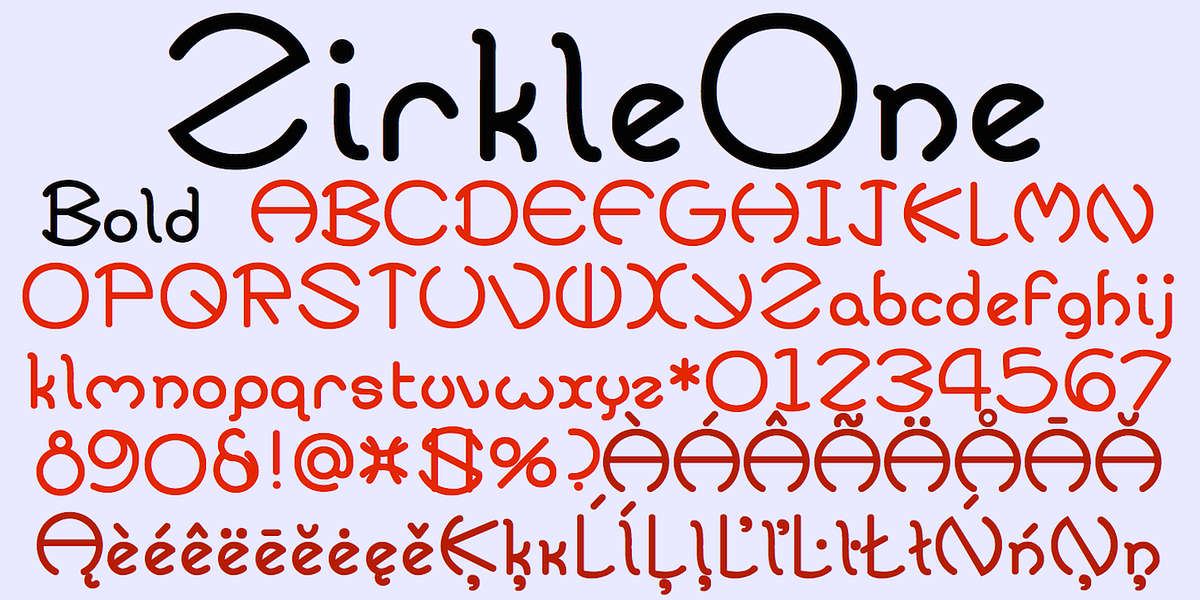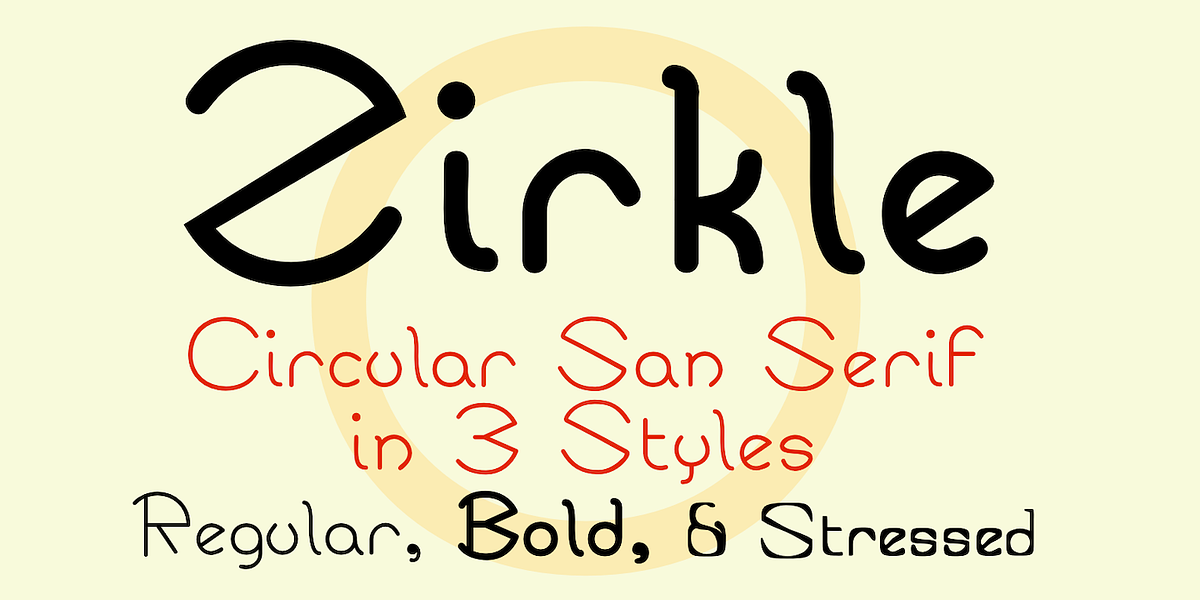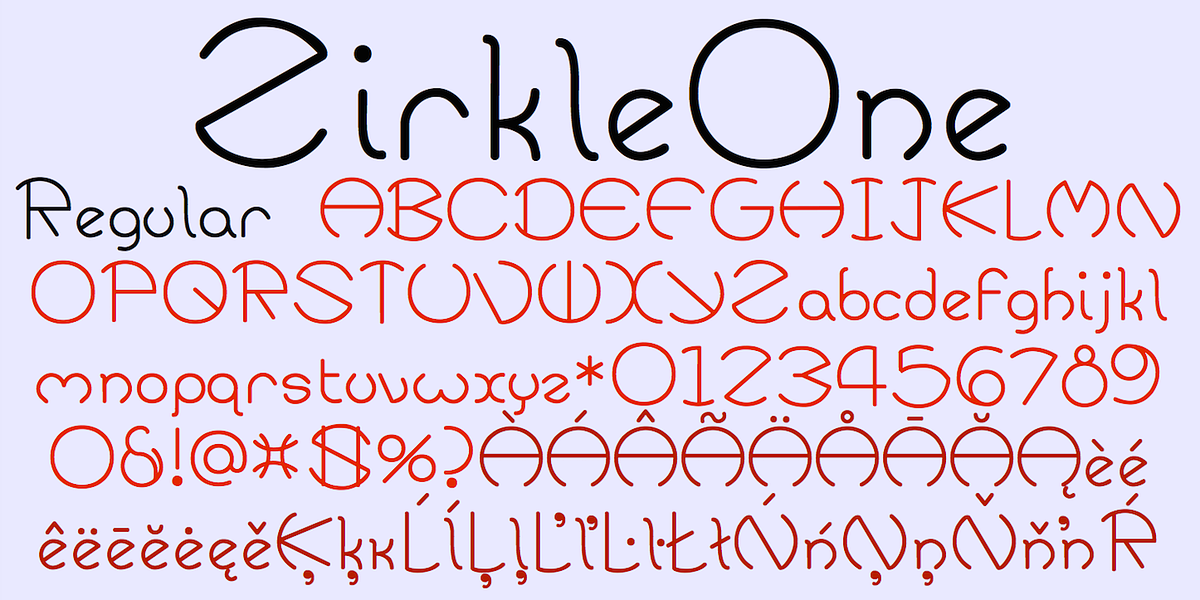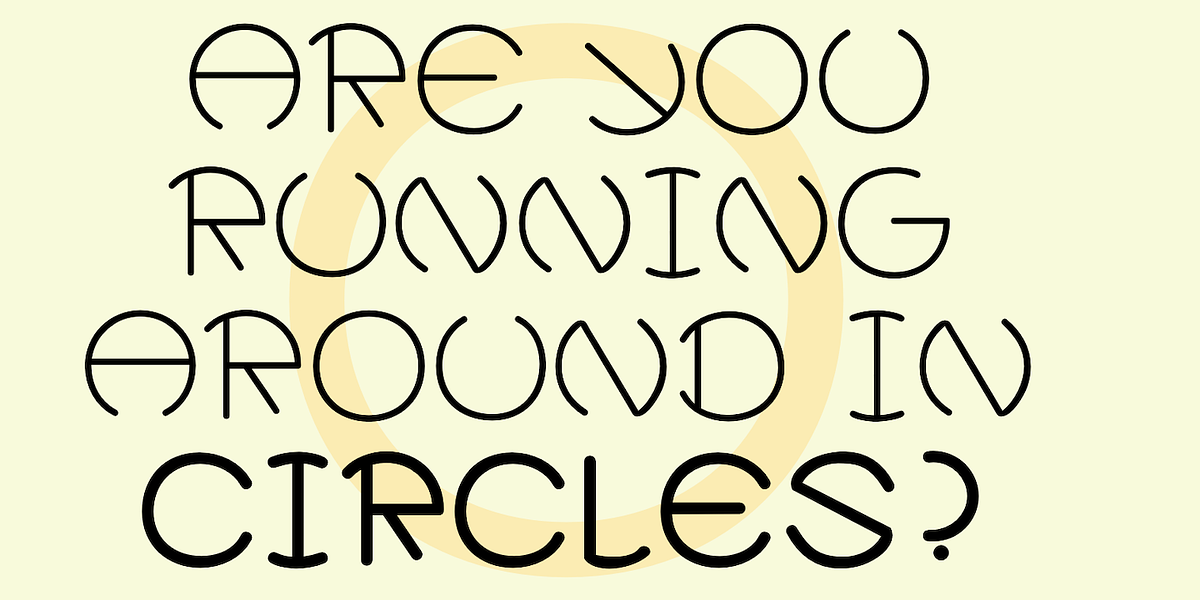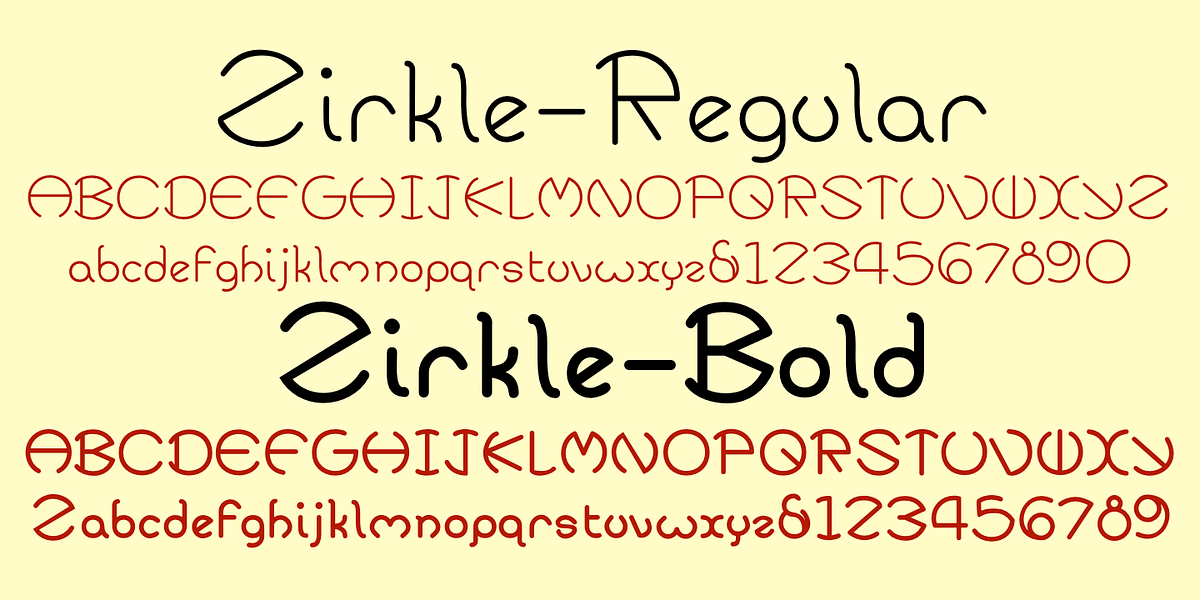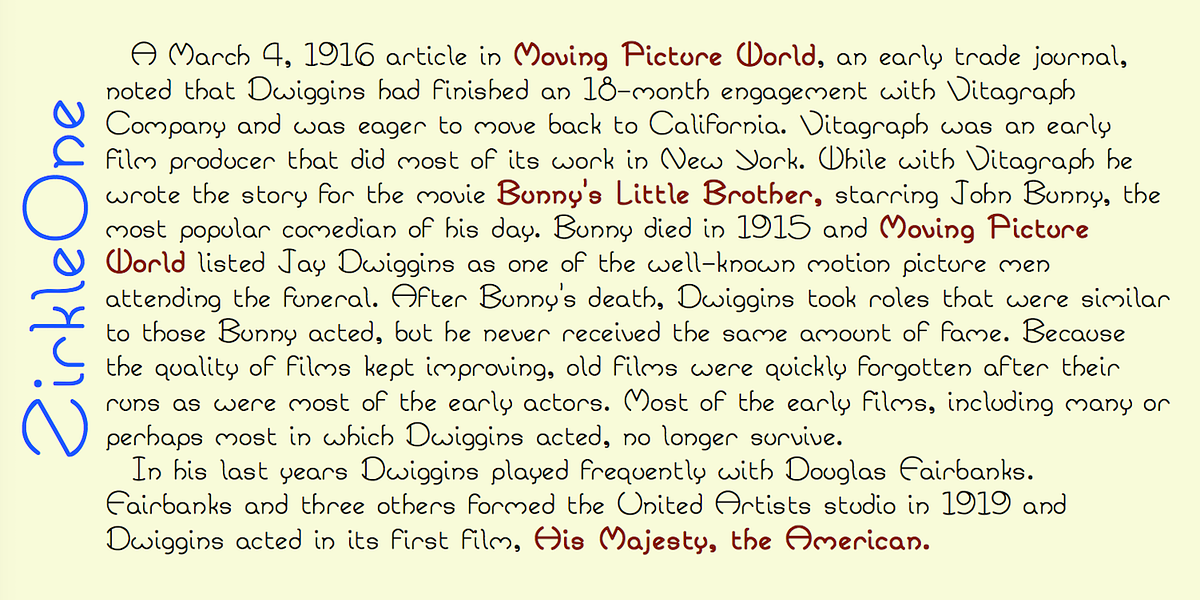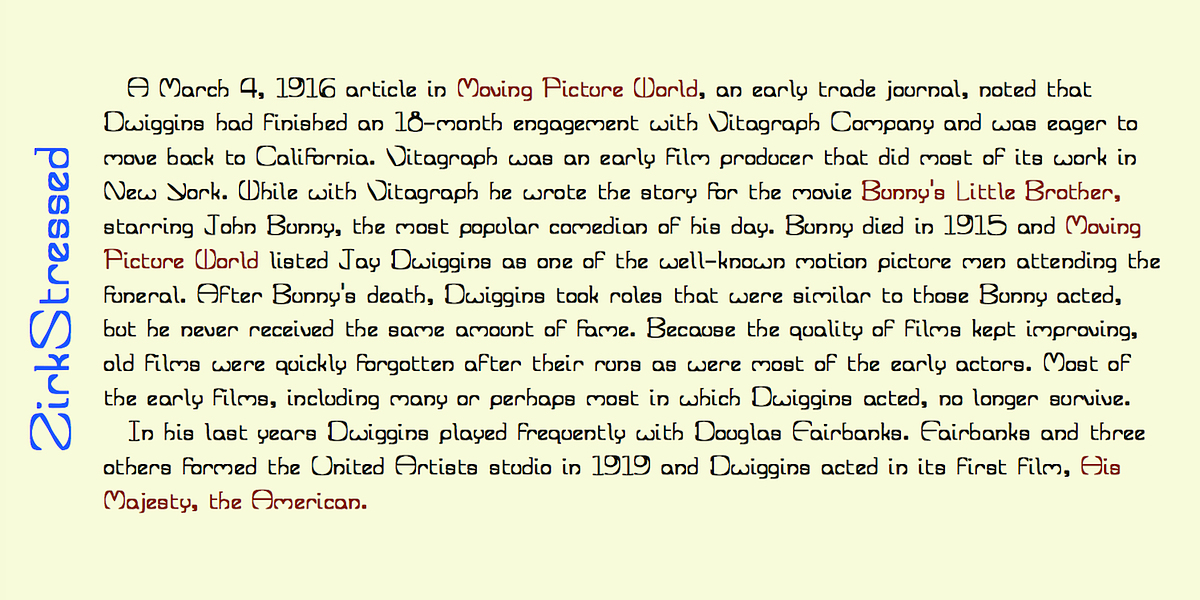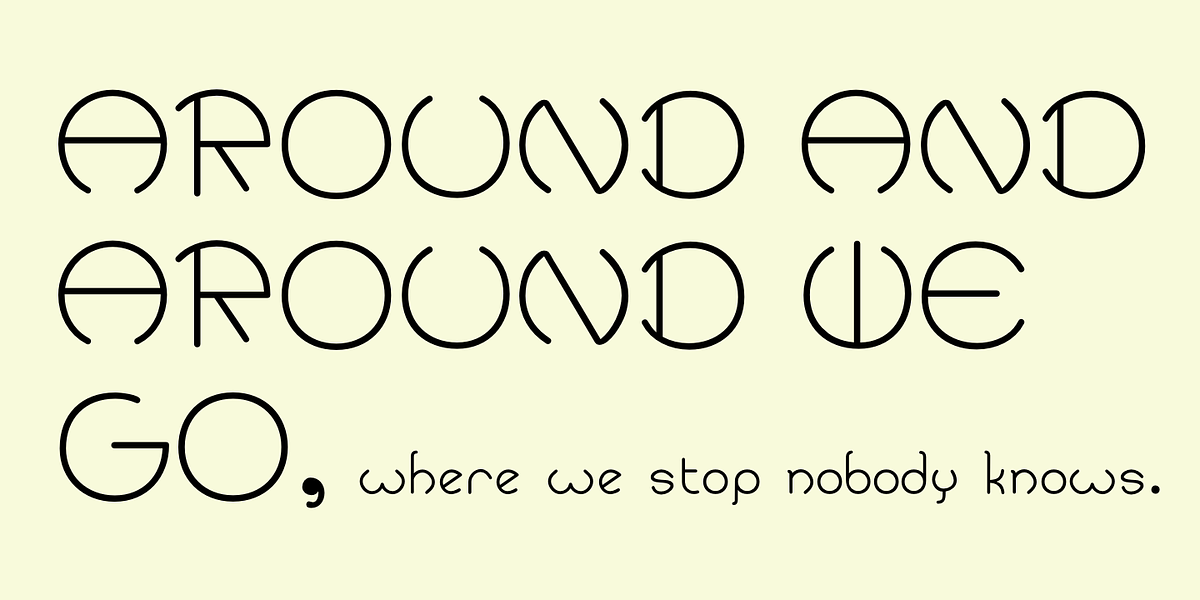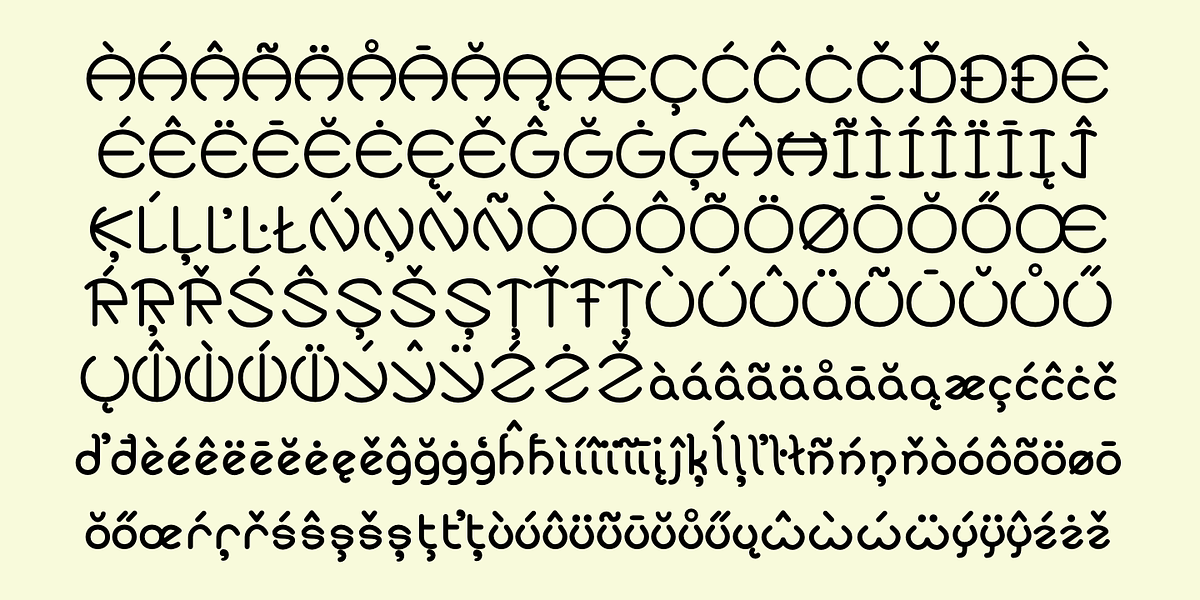
Zirkle
Zirkle is a geometric display font characterized by its unique construction. The uppercase letters are formed from circles or segments of circles, with interior straight lines adding further visual interest. The font's designer created it as an exploration of geometric letterforms rather than to fulfill a specific design need.